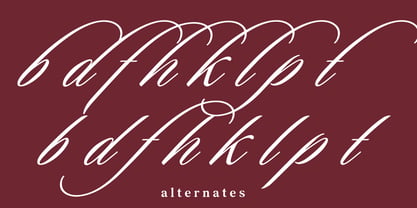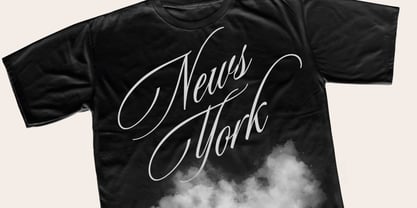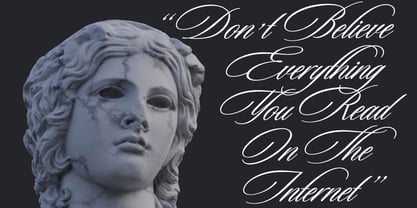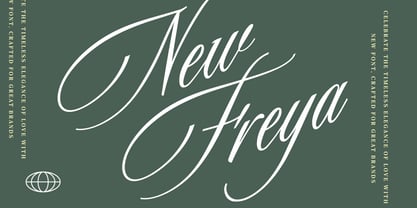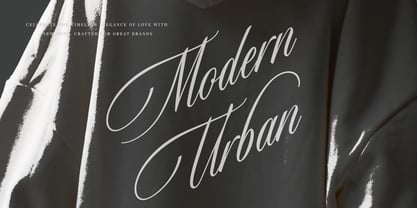
New Freya
La familia tipográfica New Freya fue diseñada por Andrii Shevchyk y publicada por Andfonts. New Freya contiene 1 estilos. Más información sobre esta familia
New Freya is a luxurious traditional calligraphy. Inspired by the beauty of formal calligraphic lettering, it features graceful curves, flowing strokes, and rich details that create an unmistakably premium appearance.
Designed for creators who appreciate classic modern style, New Freya brings prestige and character to every design. Its balanced letterforms and elegant rhythm make it ideal for projects that require a high-end aesthetic.